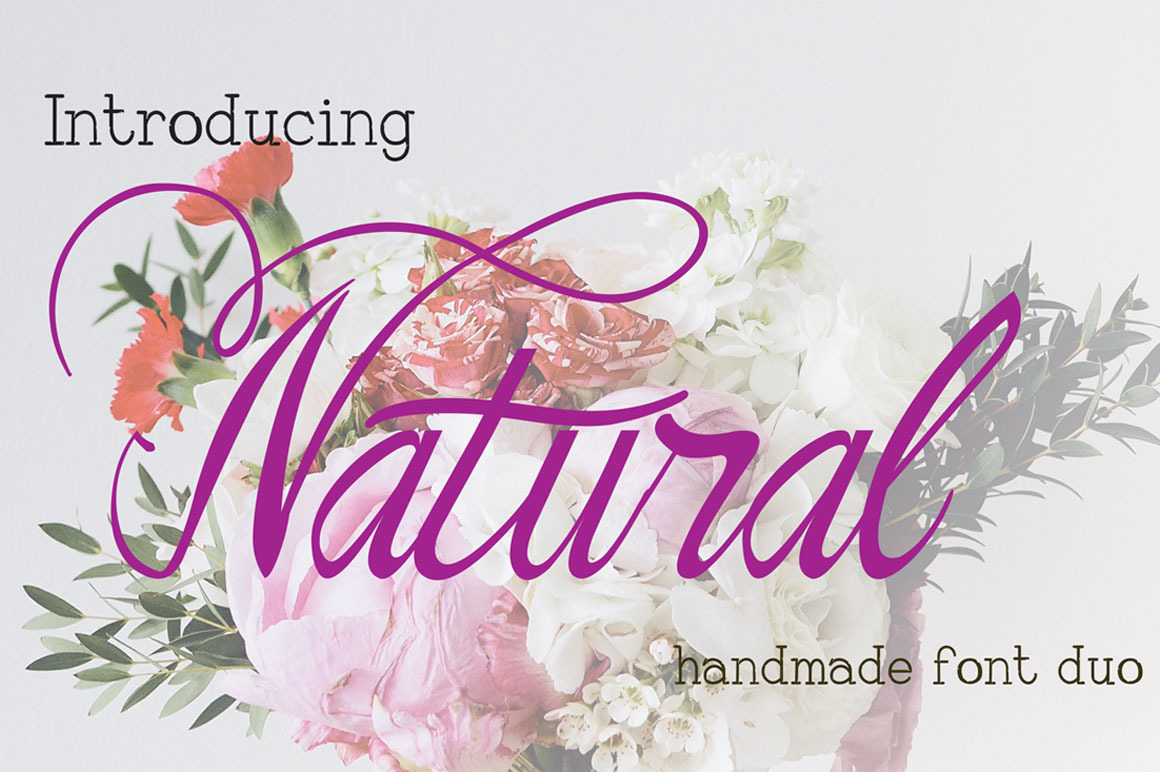
The Natural Old Font Duo
Introducing The Natural Old Font Duo include two font character handmade of script and serif.
The Natural Old Font is handmade font with Ligature and alternate gylph of script font and standart type of Font Serif.
The Font:
Natural Old Script: a elegan and classic type a look natural and light. Perfect for branding, Logos, wall design, wedding stationery, beautifull card, formal letter, ect. it's come with opentype, Ligature, Alternate Character, number and punctuation. support windows.
Natural Old Serif is Beukah type Serif. this font standart type with Upper, lower, number, punctuation, included and support for windows and Max. Beukah/Natural Old serif is perfect for branding, logos, great card, ect.